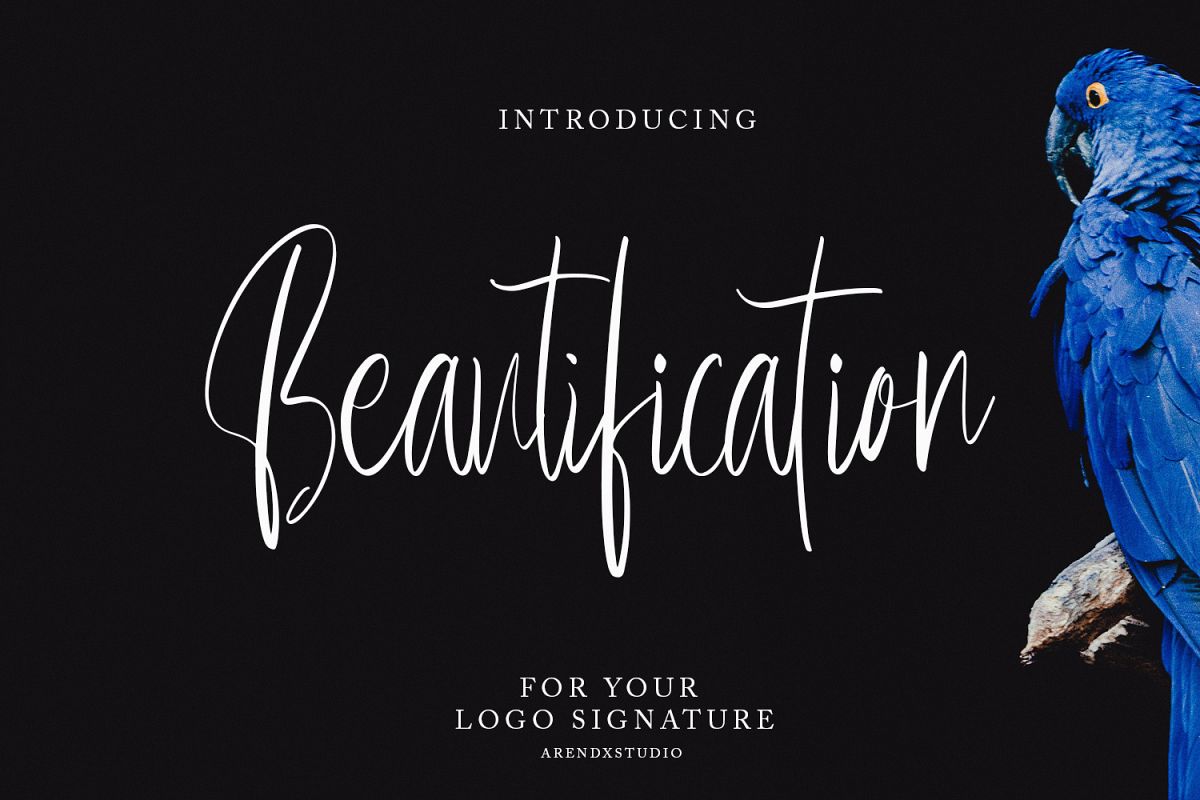
Beautification Signature Font
Beautification
Beautification Alternate
Introducing Beautification Signature, a handwritten font which is very elegant and modern for you to use and your design interests be it for logos, branding names, posters, podcasts and so on.
1.UPPERCASE & LOWERCASE
2.NUMER & PUNCTUATION
3.MULTILANGUAGE
4.LIGATURE
5.ALTERNATE